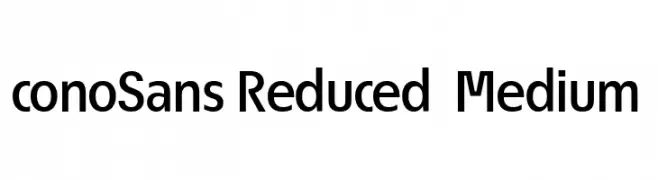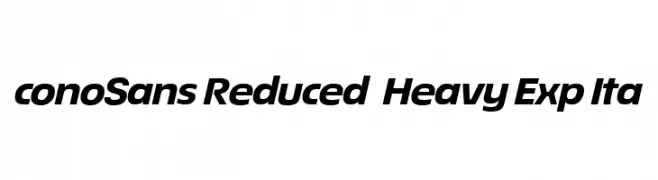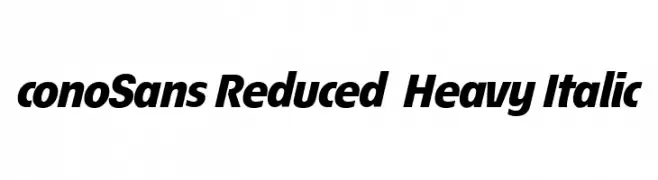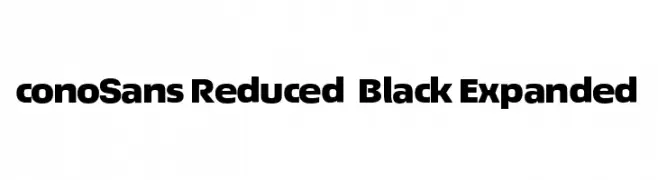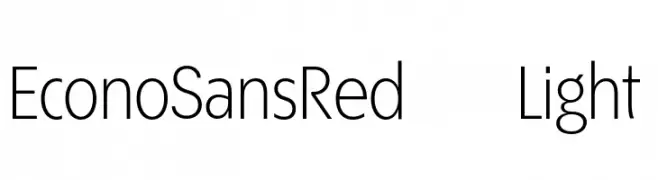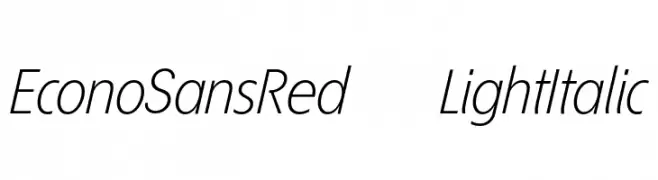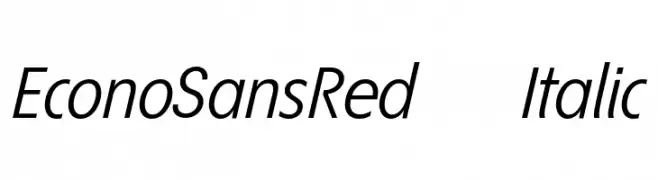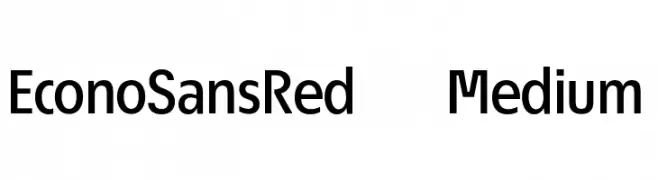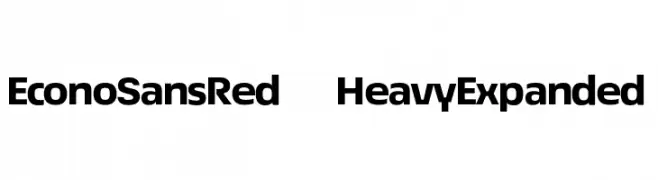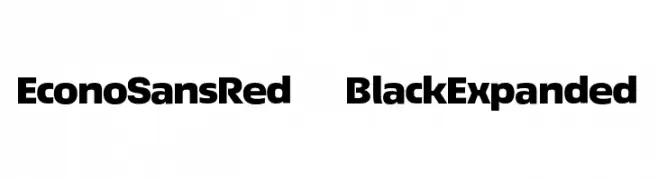
A bold, expanded typeface with geometric, uniform strokes for a modern look.
A bold, expanded sans-serif font with a modern and impactful style.
A bold, heavy italic font with a modern and dynamic style.
A modern sans-serif font with geometric letterforms and uniform stroke width.
A modern, italic sans-serif font with a sleek and dynamic style.
A modern, geometric sans-serif font with clean lines and uniform strokes.
A bold, expanded sans-serif font with a modern and geometric style.
A modern, geometric sans-serif font with uniform stroke widths.
A bold, expanded, and italicized sans-serif font with high contrast.
A modern, light, italic sans-serif font with sleek lines and balanced spacing.